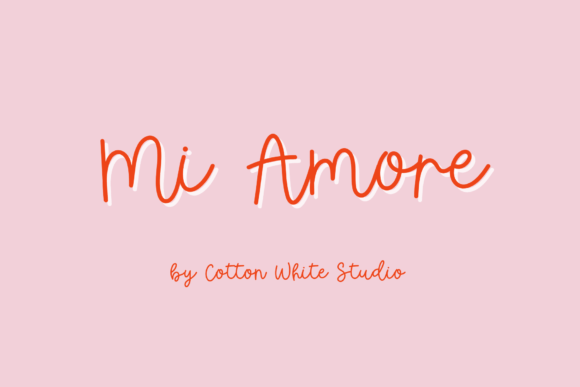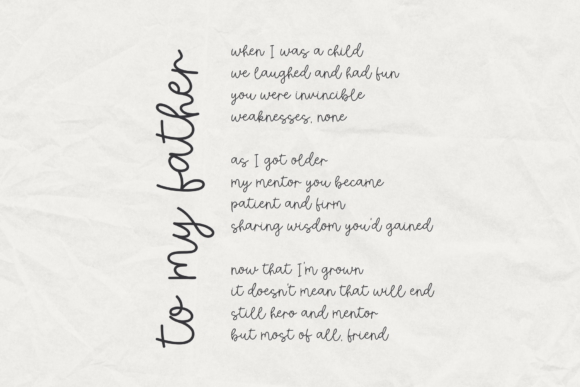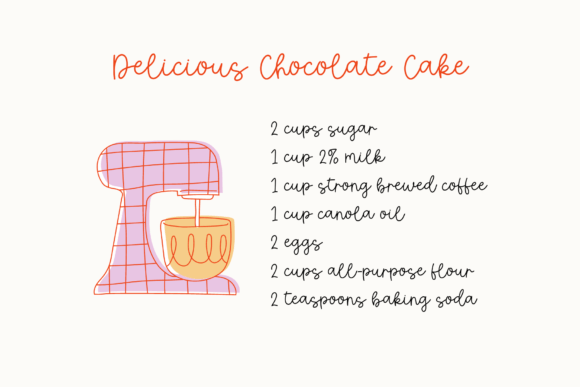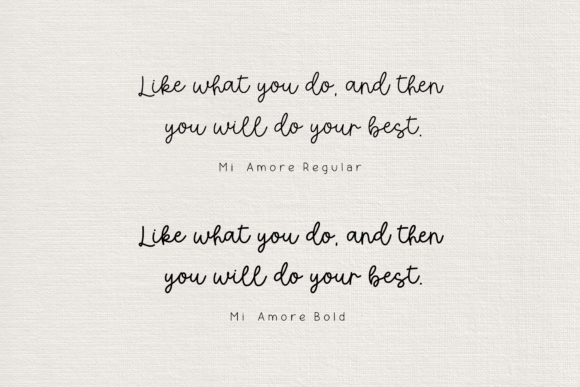
Mi Amore Font
Add a beautiful, hand-crafted look to your work with this fabulously scripted font! A hand-drawn elegant font that will add a unique touch to your work. Perfect for branding, invitations, blogs, and planners. Adding an authentic hand-lettered touch to your projects couldn’t be easier!